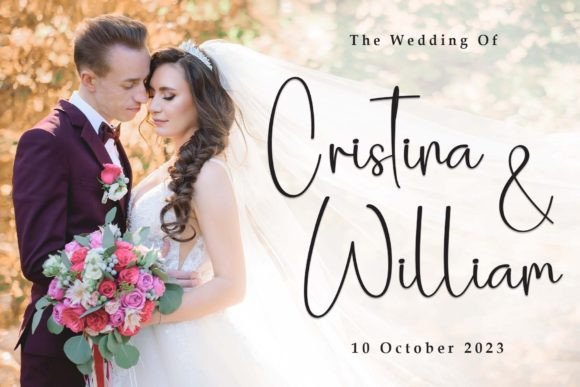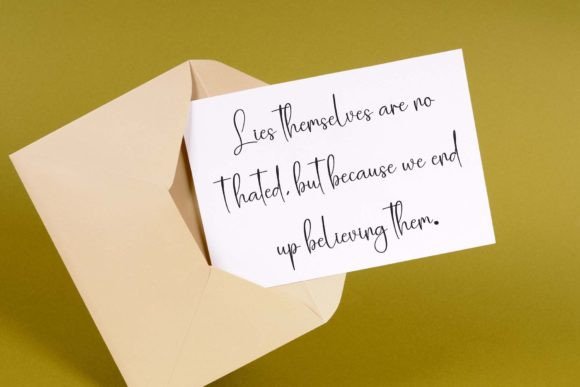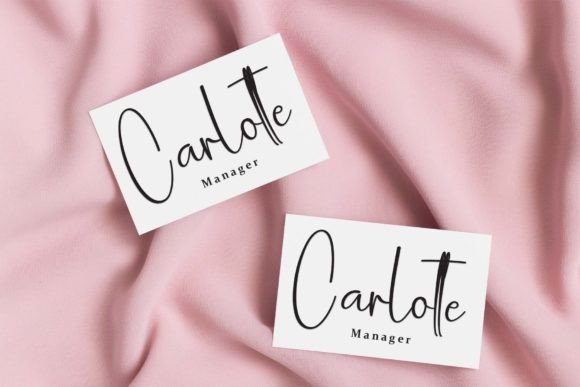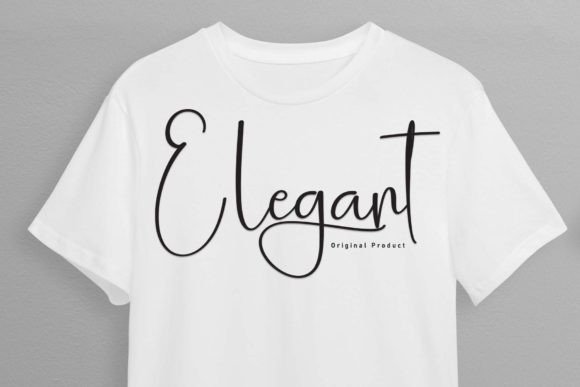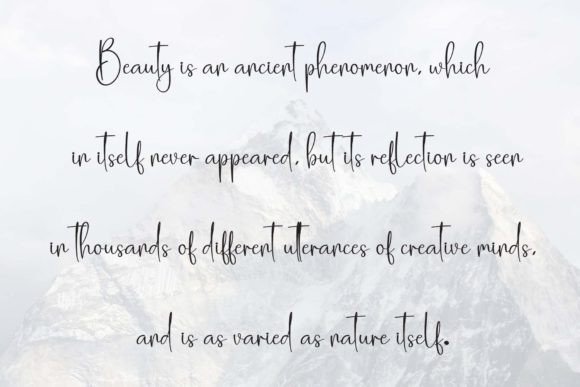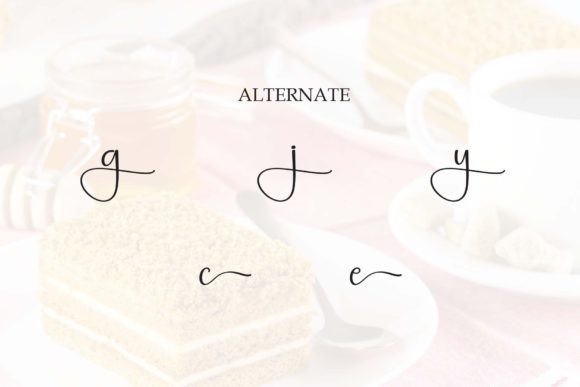
Introduction to Honeycake Font
Have you ever stumbled upon a design that makes you feel all warm and fuzzy inside? For me, it was a beautifully handwritten logo that caught my eye in a free design resource website. The moment I saw it, I knew I had to learn more about the Honeycake Font that made it possible.
As a designer, there’s nothing quite like discovering a new high-quality font that can elevate your creative project to the next level. The Honeycake Font is one of those hidden gems that can add a touch of elegance and sophistication to your design. With its unique and beautiful touch, it’s no wonder why it’s a popular choice for creating eye-catching logos, branding, and quotes. Whether you’re working on a design project with a transparent background or looking for a free download, the Honeycake Font is definitely worth exploring.
Key Features of Honeycake Font
- High-quality, hand-drawn design perfect for creative projects and design resources.
- Features a unique, whimsical design style that adds a touch of personality to any project.
Honest Review: Honeycake Font
I recently had the chance to work with the Honeycake Font, and I must say, it’s a lovely addition to any design project. As a designer, I’m always on the lookout for high-quality fonts that can help me create visually appealing and unique designs.
One of the things that stands out about the Honeycake Font is its elegant and whimsical feel. It’s perfect for creative projects where you want to add a touch of sweetness and playfulness. The font comes with a transparent background, making it easy to layer and combine with other design elements.
- Unique and elegant design style
What doesn’t: ⚠️
- May not be suitable for formal or corporate designs
- Limited character set, which may limit its use in longer texts
Overall, I’m impressed with the Honeycake Font. It’s a great resource for designers looking to add a touch of creativity and whimsy to their projects. While it may have some limitations, it’s a great addition to any design library.
Common Use Cases for Honeycake Font
The Honeycake Font is perfect for wedding invitations, birthday party decorations, and other creative projects that require a touch of elegance and sophistication. It’s also great for designers who want to add a unique and creative element to their designs.